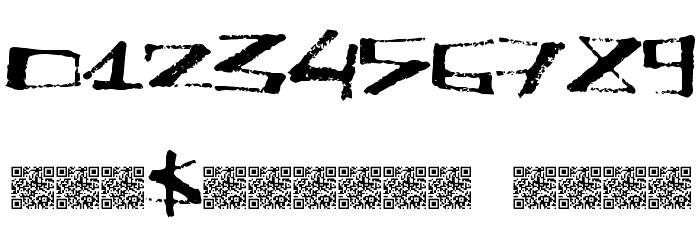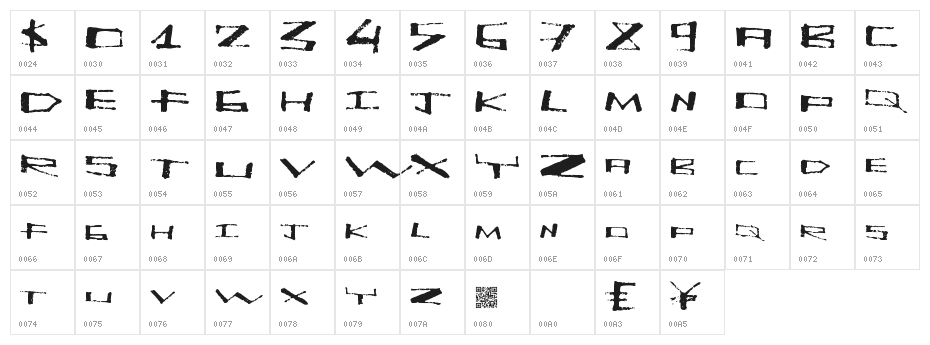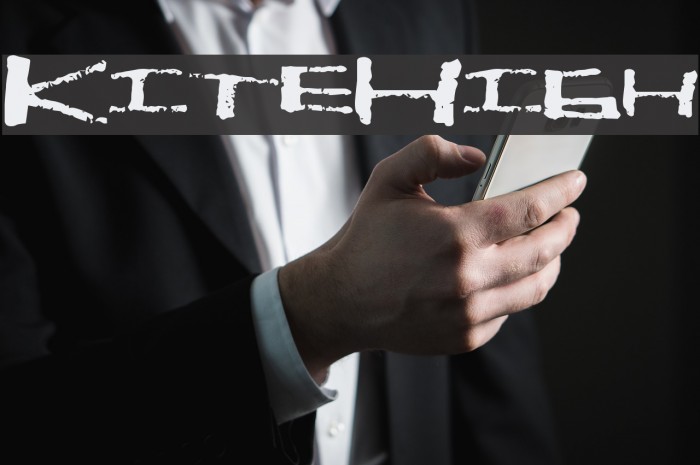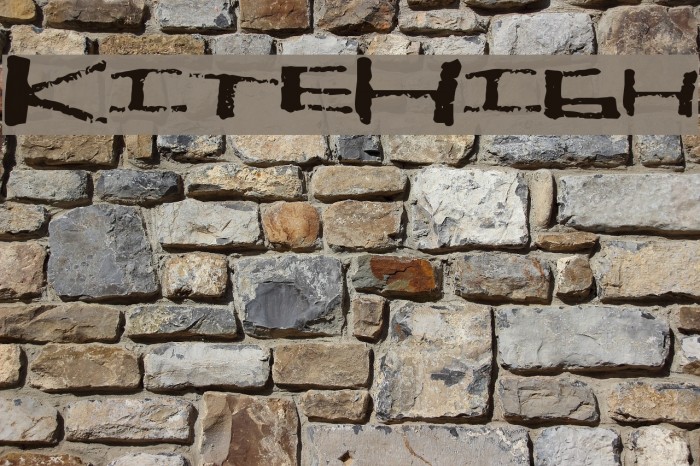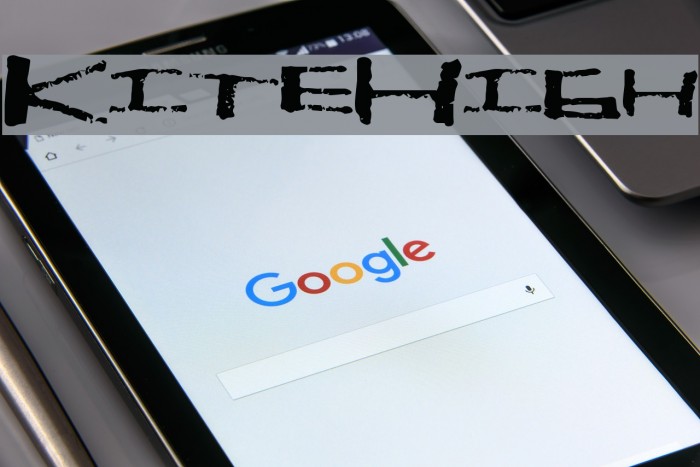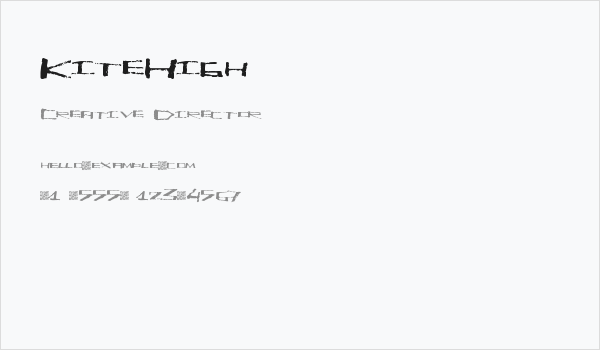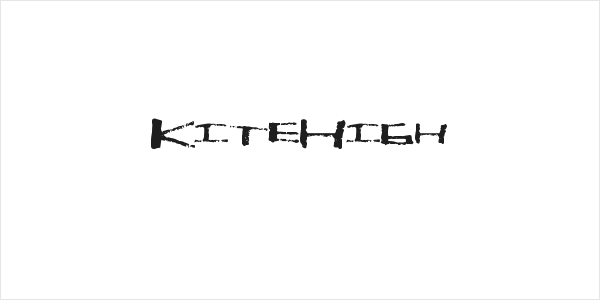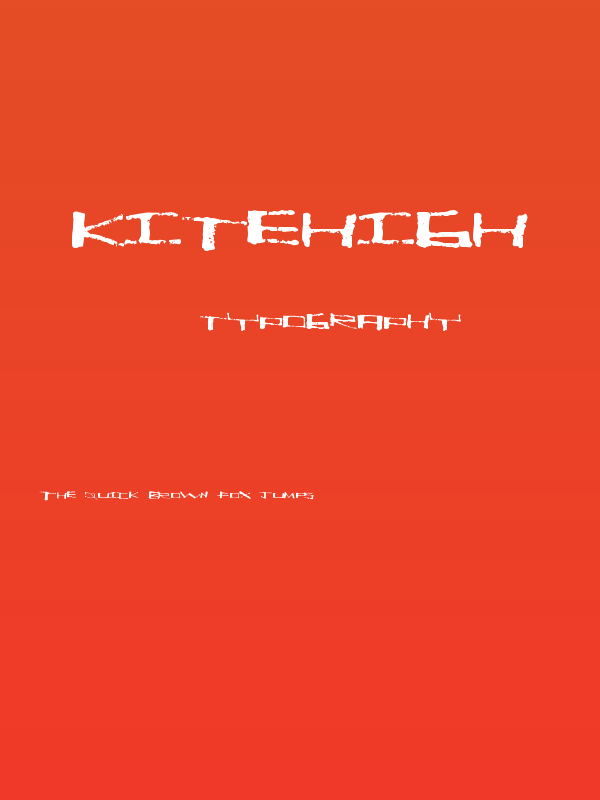
KiteHigh Font
KiteHigh Description
This font features a rugged, distressed appearance with a hand-drawn aesthetic. The characters are bold and uneven, giving a sense of movement and energy. The uppercase letters have a jagged, edgy style, while the lowercase letters maintain the same rough texture. Numbers and special characters follow the same design, ensuring consistency throughout. This font's unique style makes it stand out, perfect for projects that require a bold statement.
| Proposed Projects | Ideal for posters, album covers, graffiti art, and urban-themed designs. |